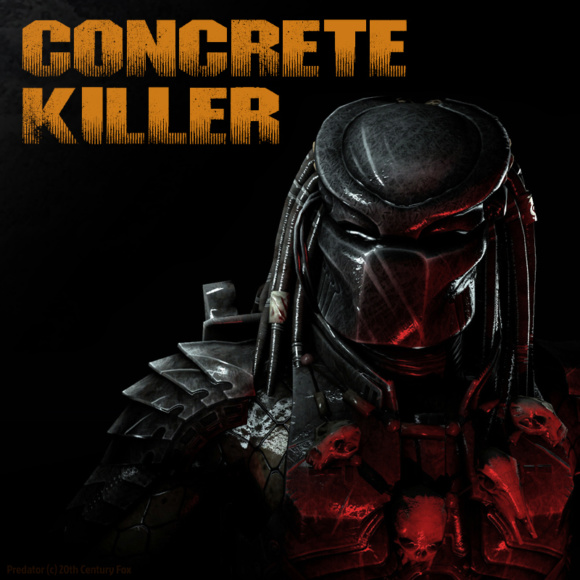
Concrete Killer Font
About the Concrete Killer Font
Elevate your designs with Concrete Killer Font, a font that combines sophistication with readability. Concrete Killer is a distressed font, an adaptable decorative font for projects that need that post-apocalyptic grunge vibe. This font has tons of texture, and comes in blocky caps.
Concrete Killer excels in headlines, posters, and branding applications where a strong, rebellious aesthetic is desired. Its rugged texture works particularly well for projects related to streetwear, heavy metal music, or dystopian themes. Avoid using it for body text or UI elements; its low readability makes it unsuitable for large amounts of text.
For effective pairings, consider a clean sans-serif like Futura or a geometric sans-serif for contrast. These fonts will provide a modern counterpoint to Concrete Killer’s raw, distressed texture. Alternatively, a more refined serif like Garamond could be used for supporting text to create a visually interesting juxtaposition between the old and the new.
The font’s core personality is bold and rebellious, conveying a sense of raw energy and grit. It’s ideal for brands that want to project a strong, uncompromising image.
Concrete Killer Font Usage Examples
Concrete Killer Font Example